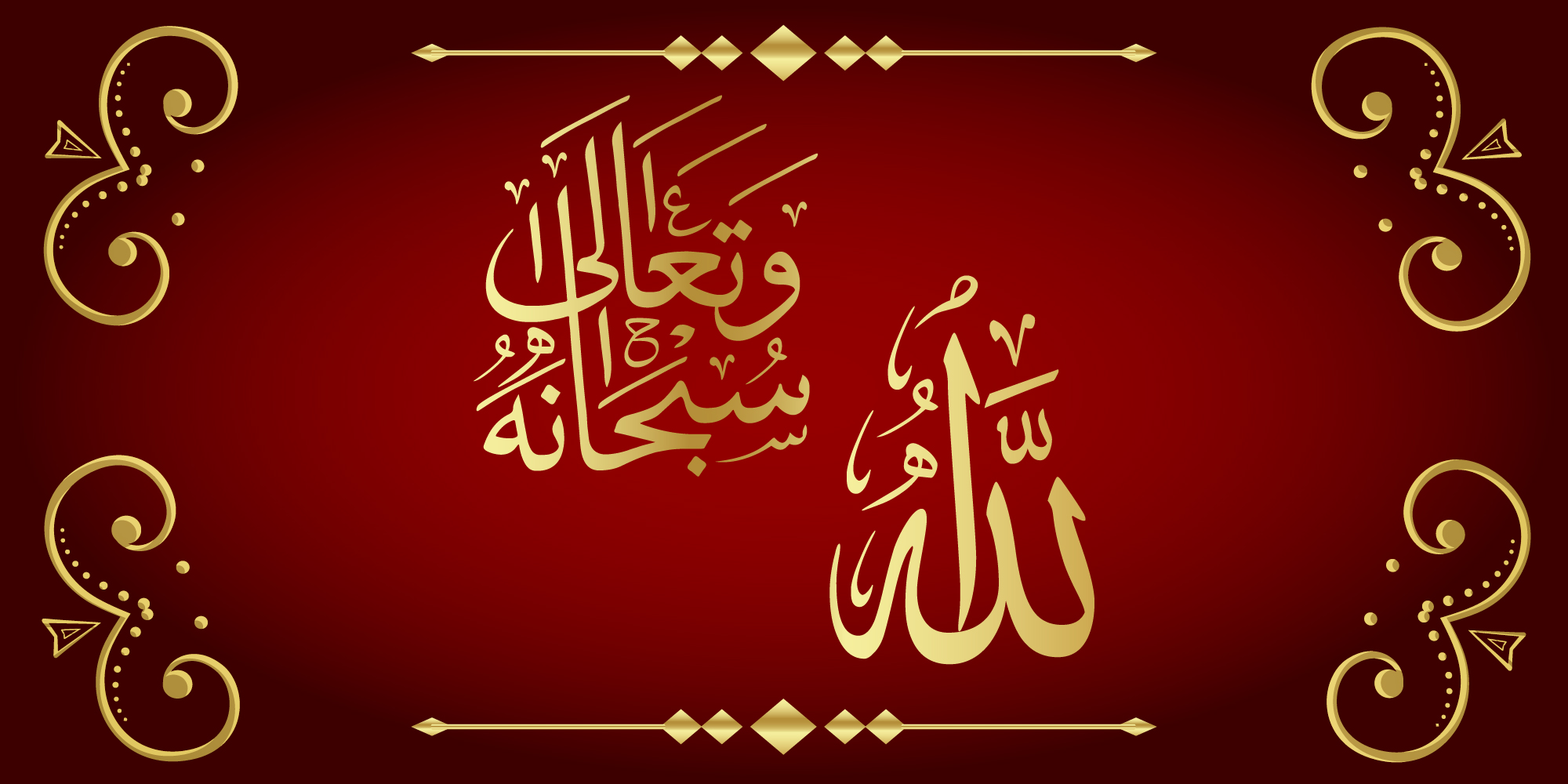
99 Names of ALLAH Subhanahu Font is perfect for Islamic calligraphy projects, religious educational materials, mosque signage, spiritual publication design, Islamic art installations, religious ceremony invitations, cultural heritage projects, devotional book typography, Islamic studies documentation, and sacred applications that honor divine reverence and spiritual devotion with respectful artistic expression.
What makes 99 Names of ALLAH Subhanahu Font truly exciting is its sacred embodiment of divine reverence and spiritual beauty that brings the profound meaning of Islamic faith into typography with utmost respect and artistic devotion. This exceptional typeface captures the essence of spiritual devotion with its reverent letterforms and sacred character that convey both religious authenticity and divine honor. The font's spiritual significance and religious authenticity make it perfect for Islamic communities and cultural projects seeking to communicate faith, devotion, and the sacred beauty of Islamic artistic tradition with proper reverence and cultural sensitivity.
The 99 Names of ALLAH Subhanahu Font family includes multiple weights and styles: Regular, Bold, Light, Ornamental, and Decorative variations designed for sacred communication excellence. Each family member maintains the distinctive religious character while offering flexibility for diverse Islamic applications and spiritual branding systems. The comprehensive character set supports Arabic calligraphic elements and Islamic design traditions, making it suitable for international Muslim community communications.
When you choose 99 Names of ALLAH Subhanahu Font Free Download, you're selecting a typography blessing that honors divine reverence and Islamic artistic heritage through respectful design excellence. This sacred typeface excels in applications where religious authenticity and spiritual reverence are paramount, delivering exceptional sacred beauty while maintaining Islamic artistic integrity. Whether you're designing religious materials, Islamic educational content, mosque communications, or spiritual publications, this font provides the divine reverence and Islamic authenticity that resonates with believers who appreciate sacred artistry, religious devotion, and the beautiful expression of Islamic faith through respectful typography.